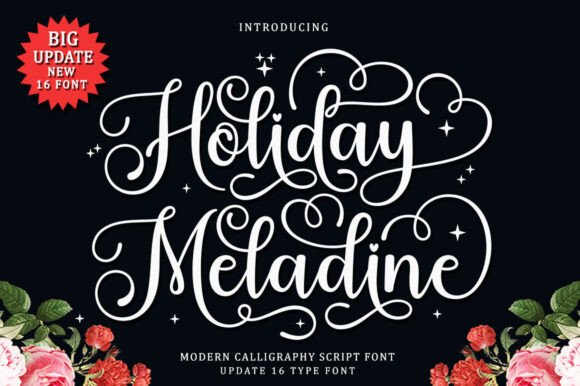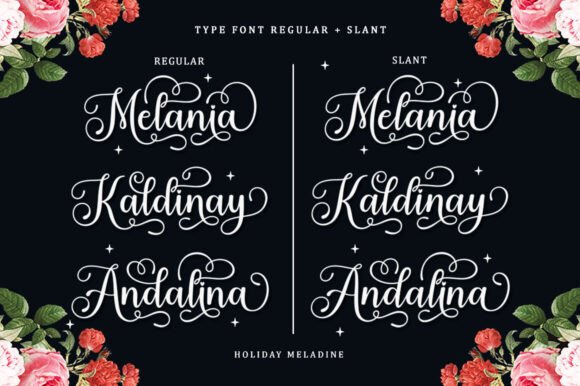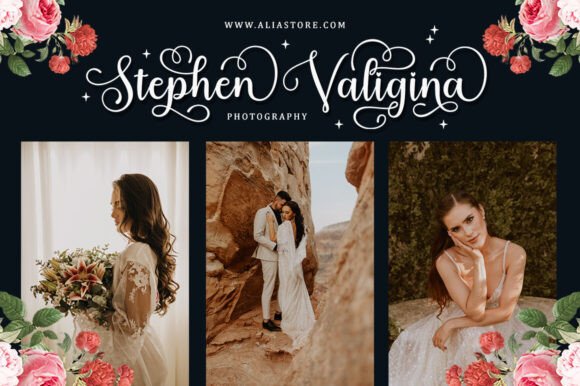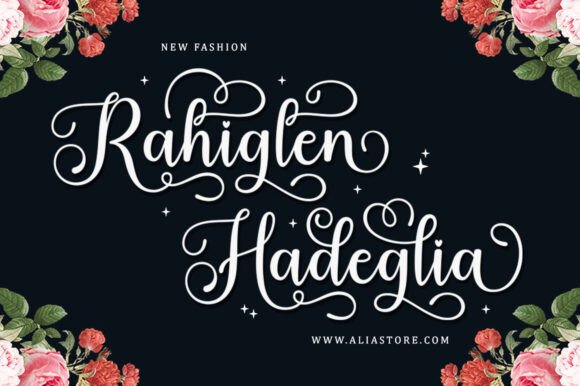
Holiday Meladine Font
About the Holiday Meladine Font
Meet Holiday Meladine Font, a stunning font that brings a touch of elegance and professionalism to any design. New Big Updates
Holiday Meladine is a modern script font that features a classic and elegant touch. It is attractive because it is sleek, clean, feminine, sensual, glamorous, simple, and very easy to read, thanks to a lot of fancy lettering. I also offer a decent number of stylistic alternatives for some of the letters. Classic style is very suitable to be applied in various formal forms such as invitations, labels, restaurant menus, logos, fashion, make-up, stationery, novels, magazines, books, greeting/wedding cards, packaging, labels, or all kinds of advertising purposes.
Holiday Meladine Font Usage Examples
Holiday Meladine Font Example